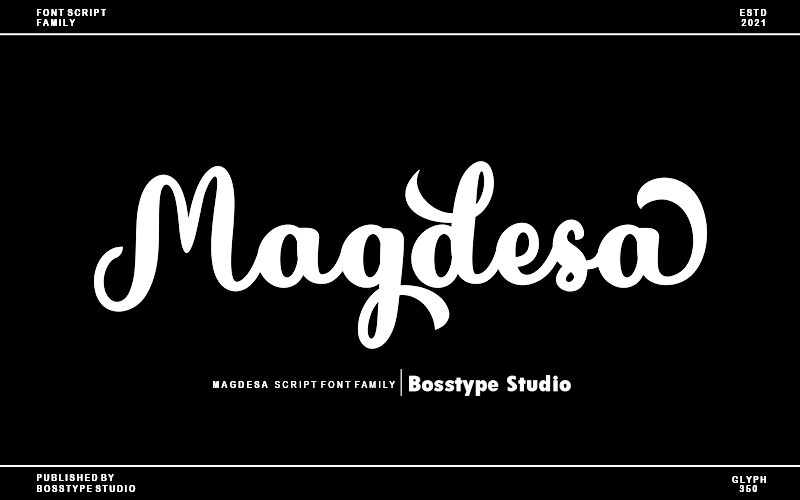
Magdesa, a creation by Mu Fazzal, is an exquisite smooth brush font that exudes elegance and finesse. With its semi-bold weight, this font is perfect for projects that aim to make a bold statement without overwhelming the viewer.
Magdesa adds a touch of sophistication to logos, branding materials, and packaging designs. Its flowing brush strokes create a sense of movement and grace, making it suitable for fashion magazines or beauty blogs.
Features : Lowercase Beginning & Ending Swashes & Ligatures.